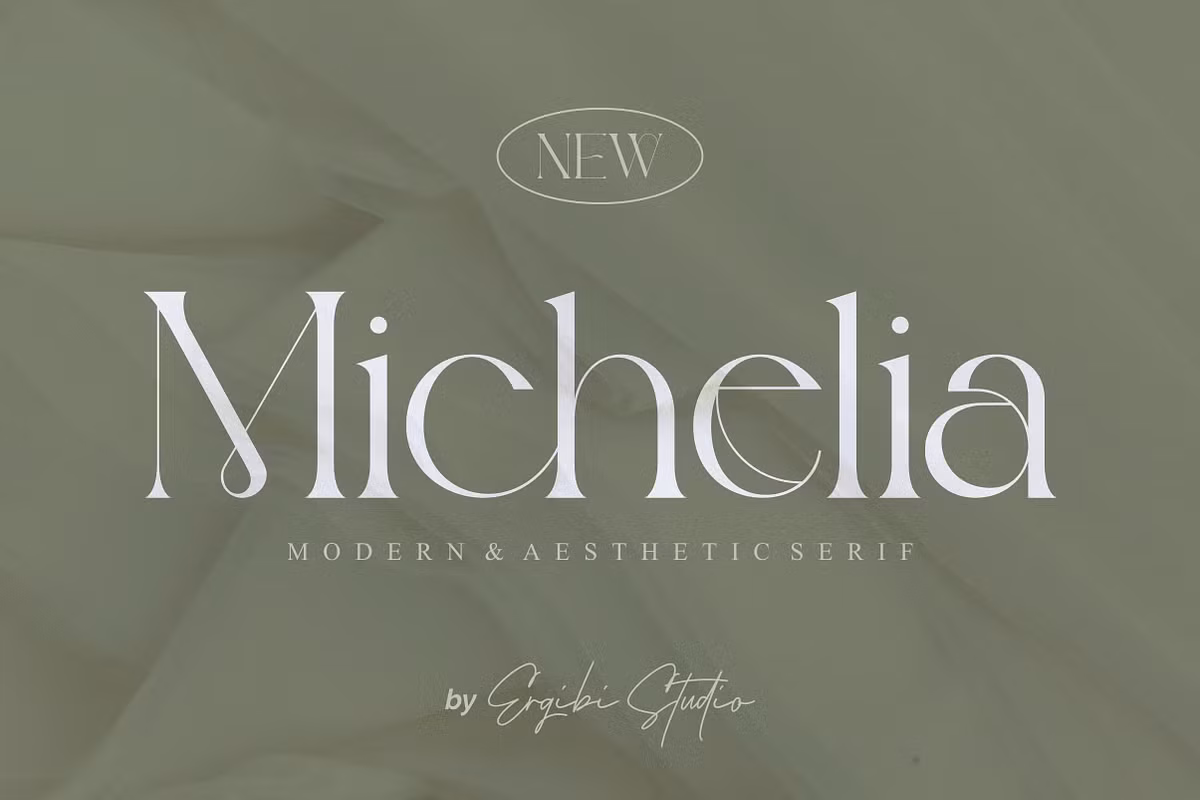
Chic, graceful, and beautifully contemporary, Michelia – Modern & Aesthetic Font Free Download is a refined serif typeface designed to add elegance and style to your creative projects. Ideal for branding, fashion editorials, logo design, social media graphics, and wedding stationery, Michelia brings a clean and aesthetic appeal that feels both timeless and on-trend.
With its soft curves, balanced proportions, and stylish ligatures, Michelia is perfect for high-end designs that need a touch of femininity and sophistication. It’s especially effective in headlines, logos, and minimalist layouts where visual impact matters most.